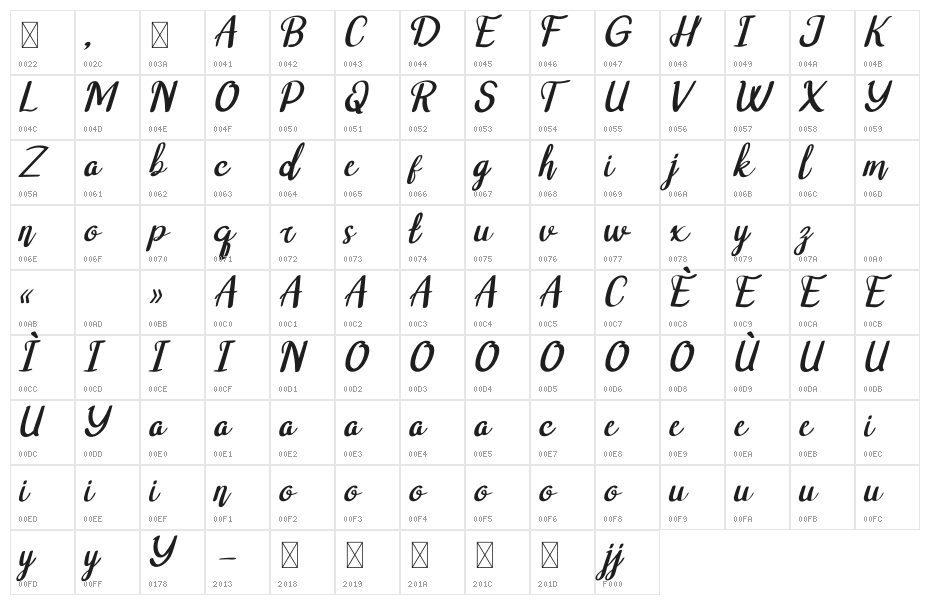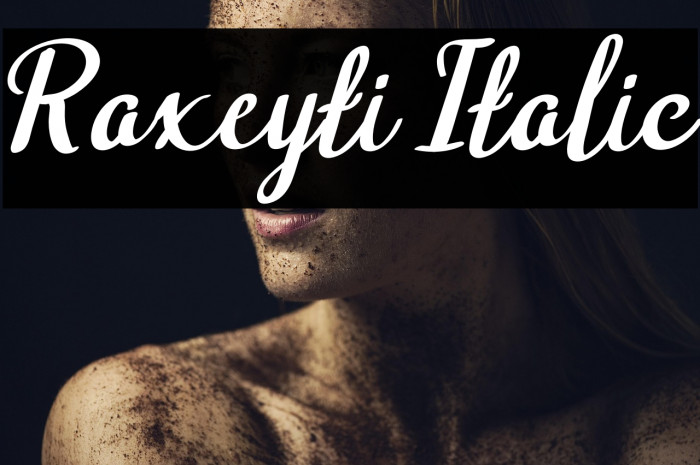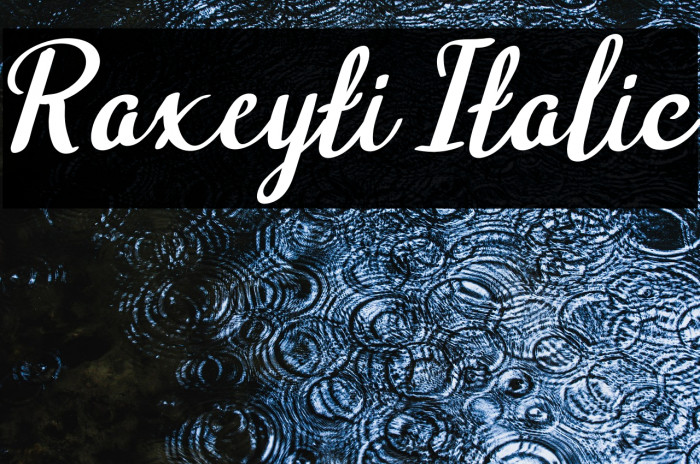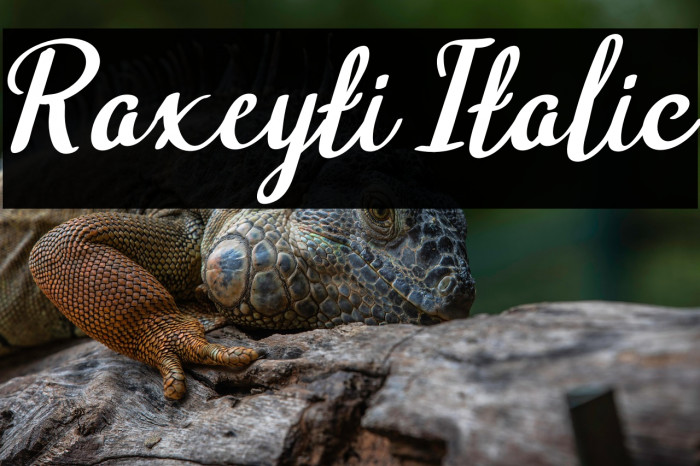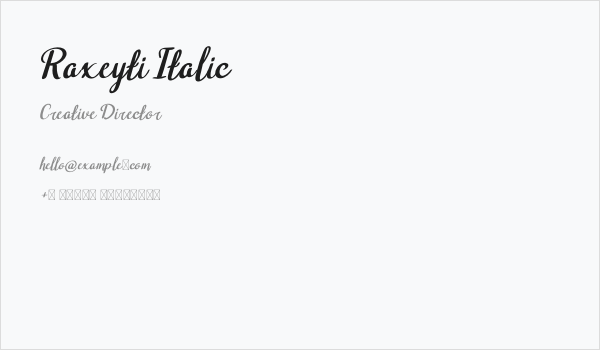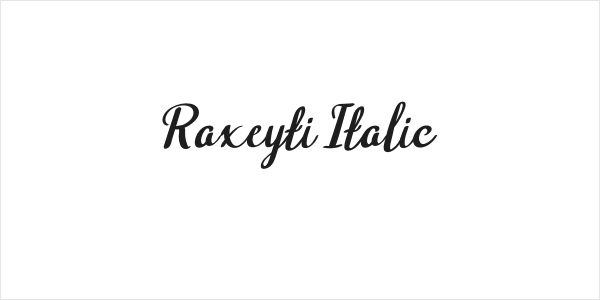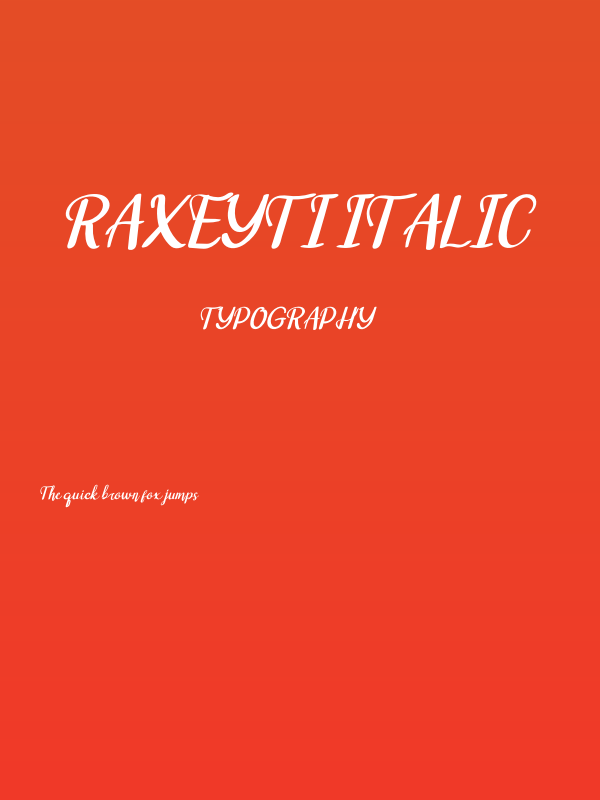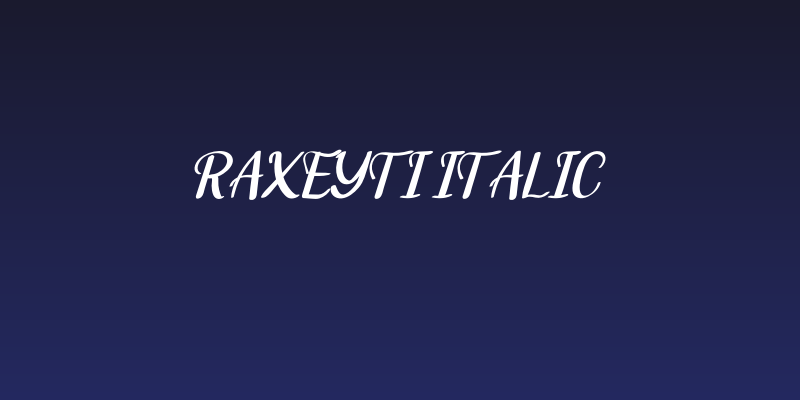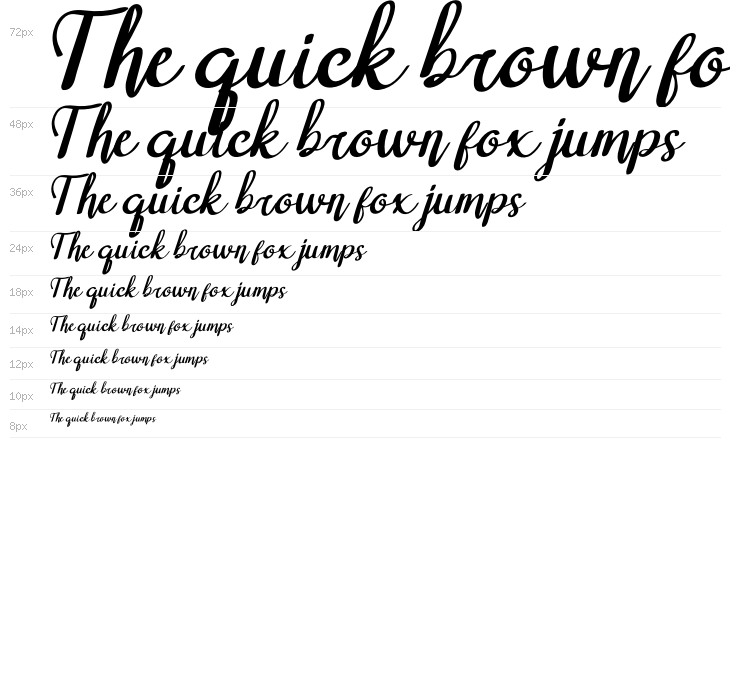
Raxeyti Italic Font
Raxeyti Italic Description
This font features a flowing, cursive style with elegant, sweeping strokes that give it a dynamic and sophisticated appearance. The uppercase letters are bold and slightly slanted, adding a sense of movement and grace. The lowercase letters maintain a consistent style, with smooth curves and a connected script that enhances readability while retaining an artistic flair. The font includes a variety of special characters, ensuring versatility for different design needs. Its overall aesthetic is both modern and classic, making it suitable for a wide range of applications.